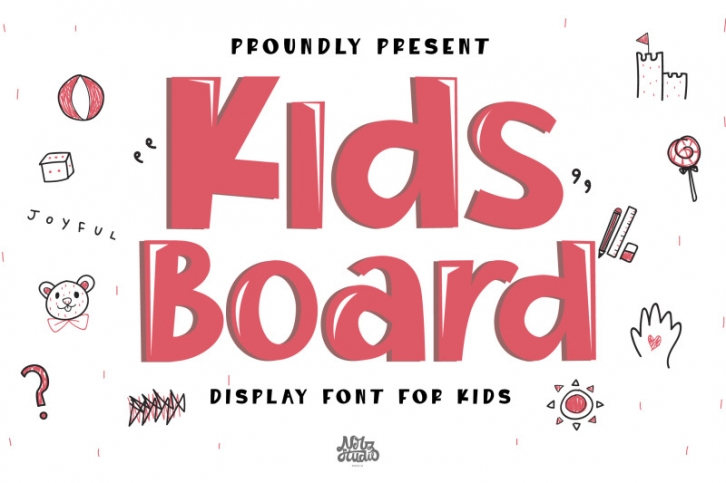
Kids Board Display Font Download
Kids Board Display Font For Kids - it's a Cute character.otf and ttf- standard uppercase, lowercase, numbers, punctuation.
This font is handmade and has a powerful character. The font is work specialty is good for product design like a Template/mockup, Post, T-shirt, Quote, event or you can use for your logo design, typography design, etc. This product is inspirational for your creative design.
Multilingual support